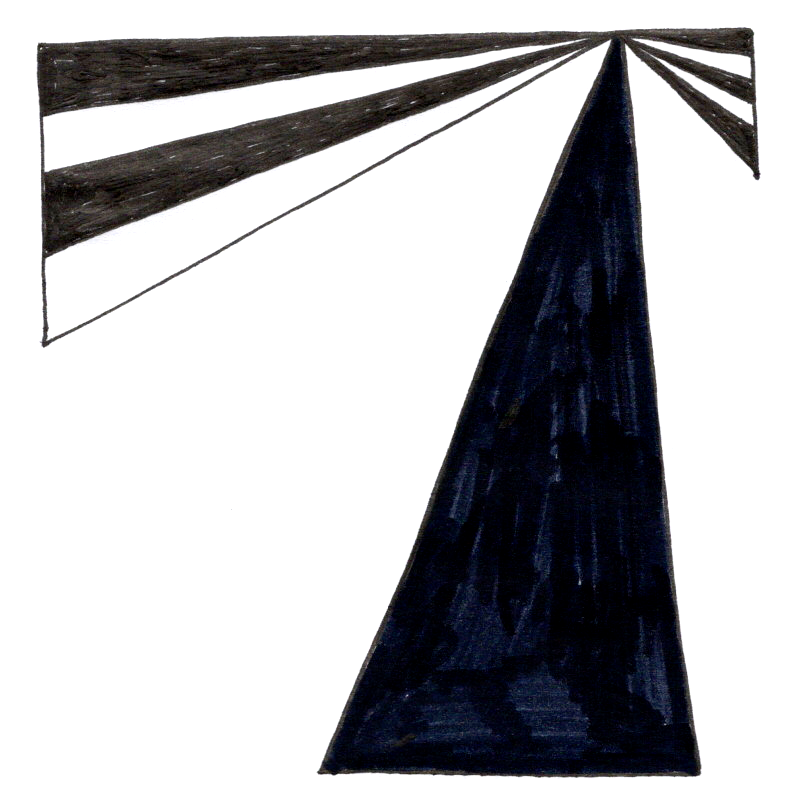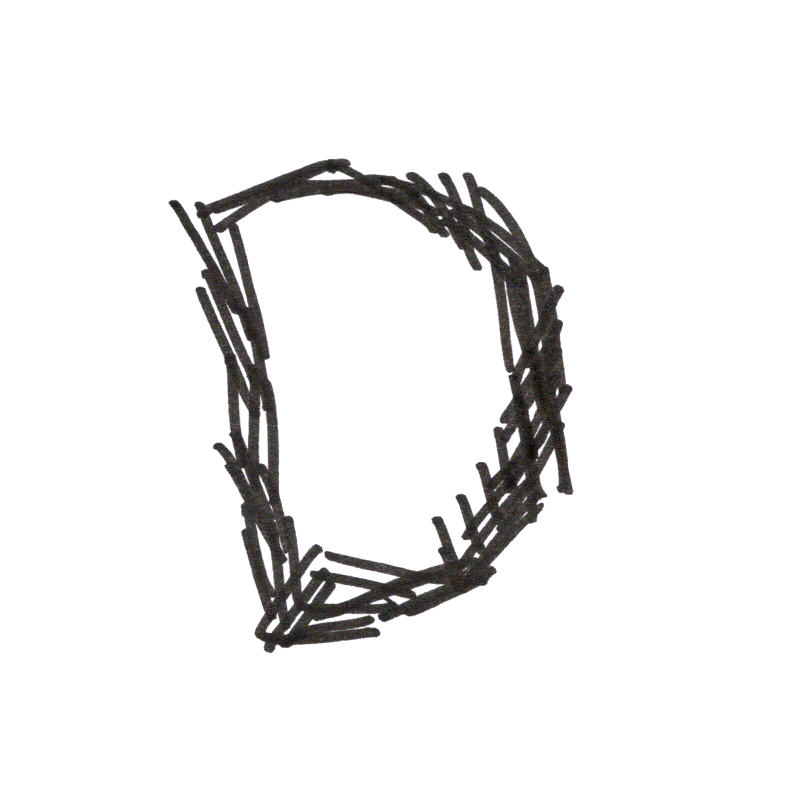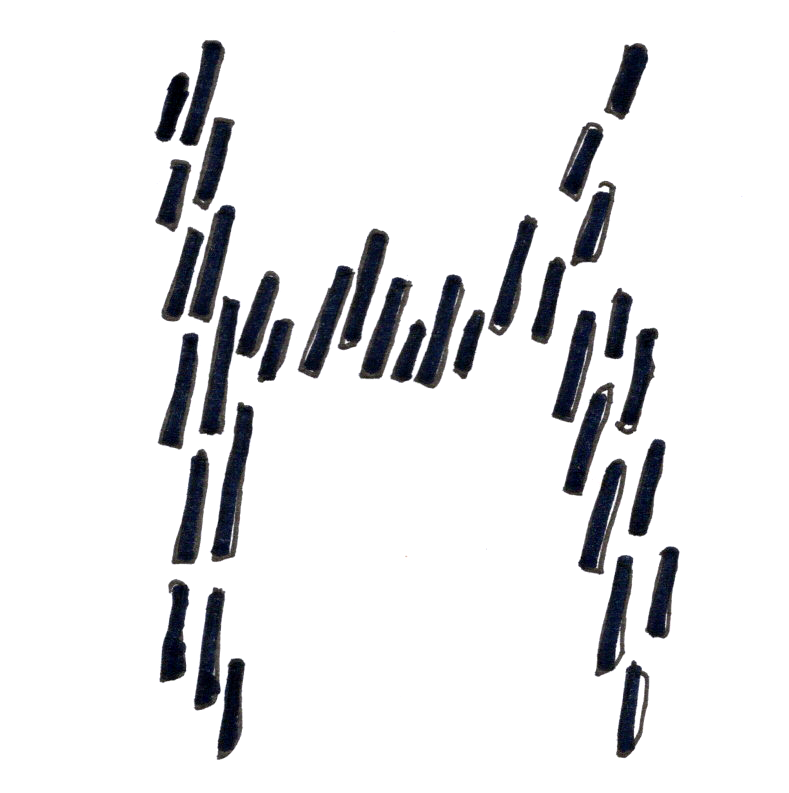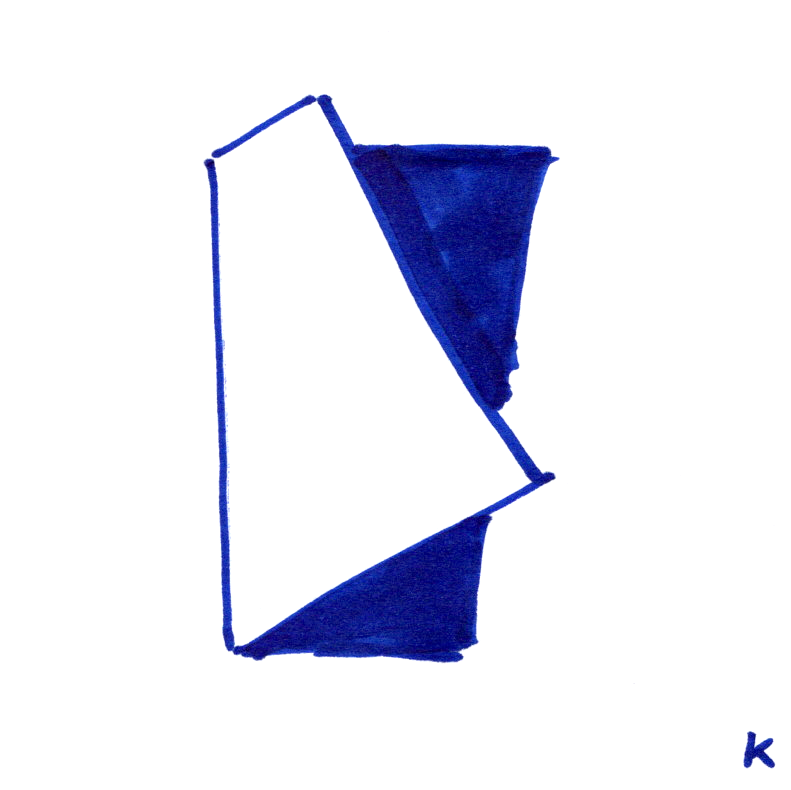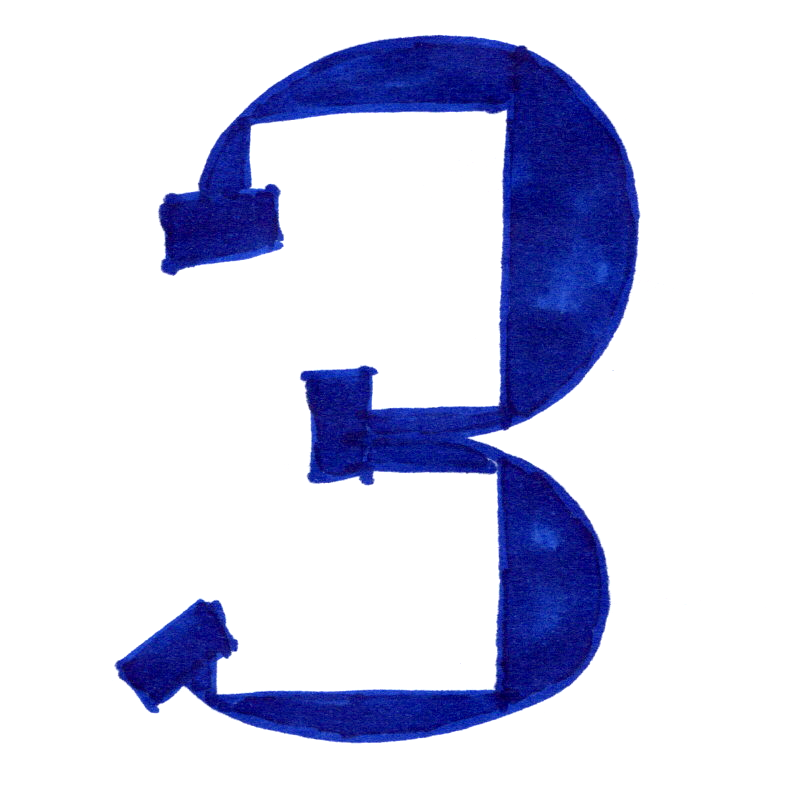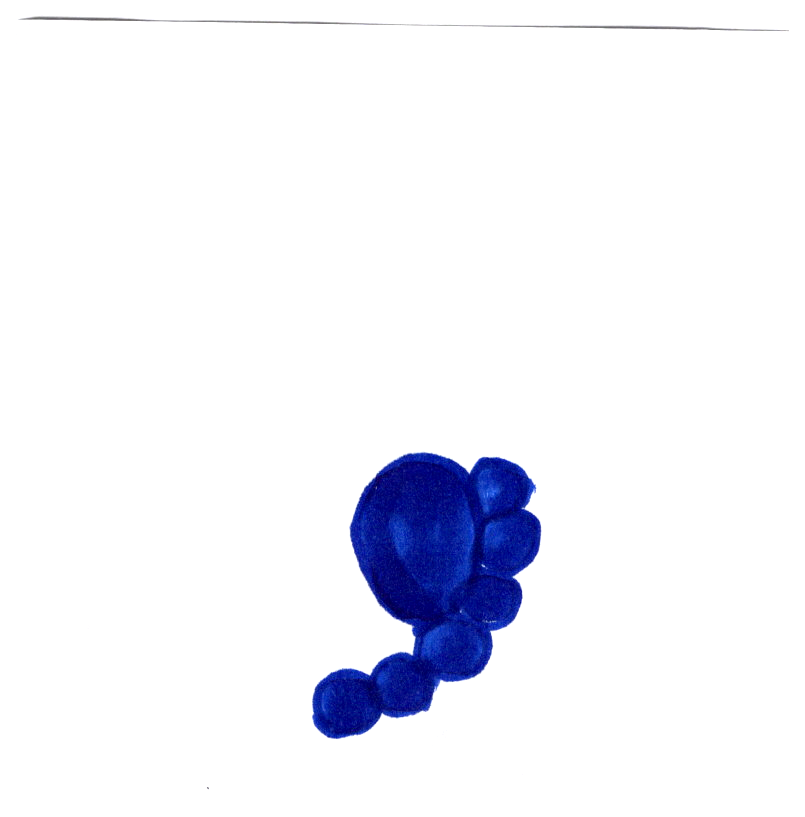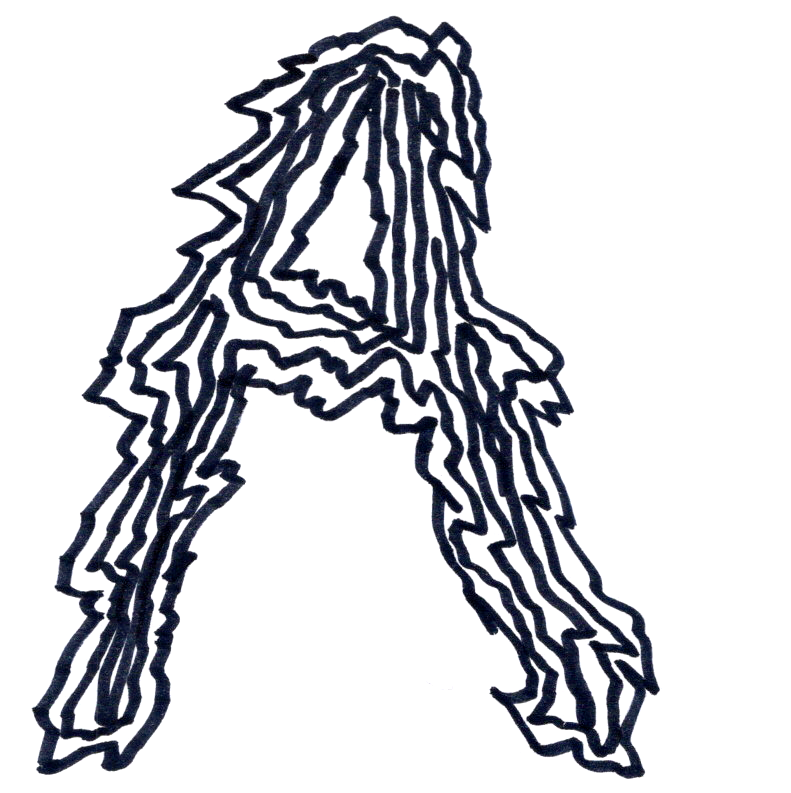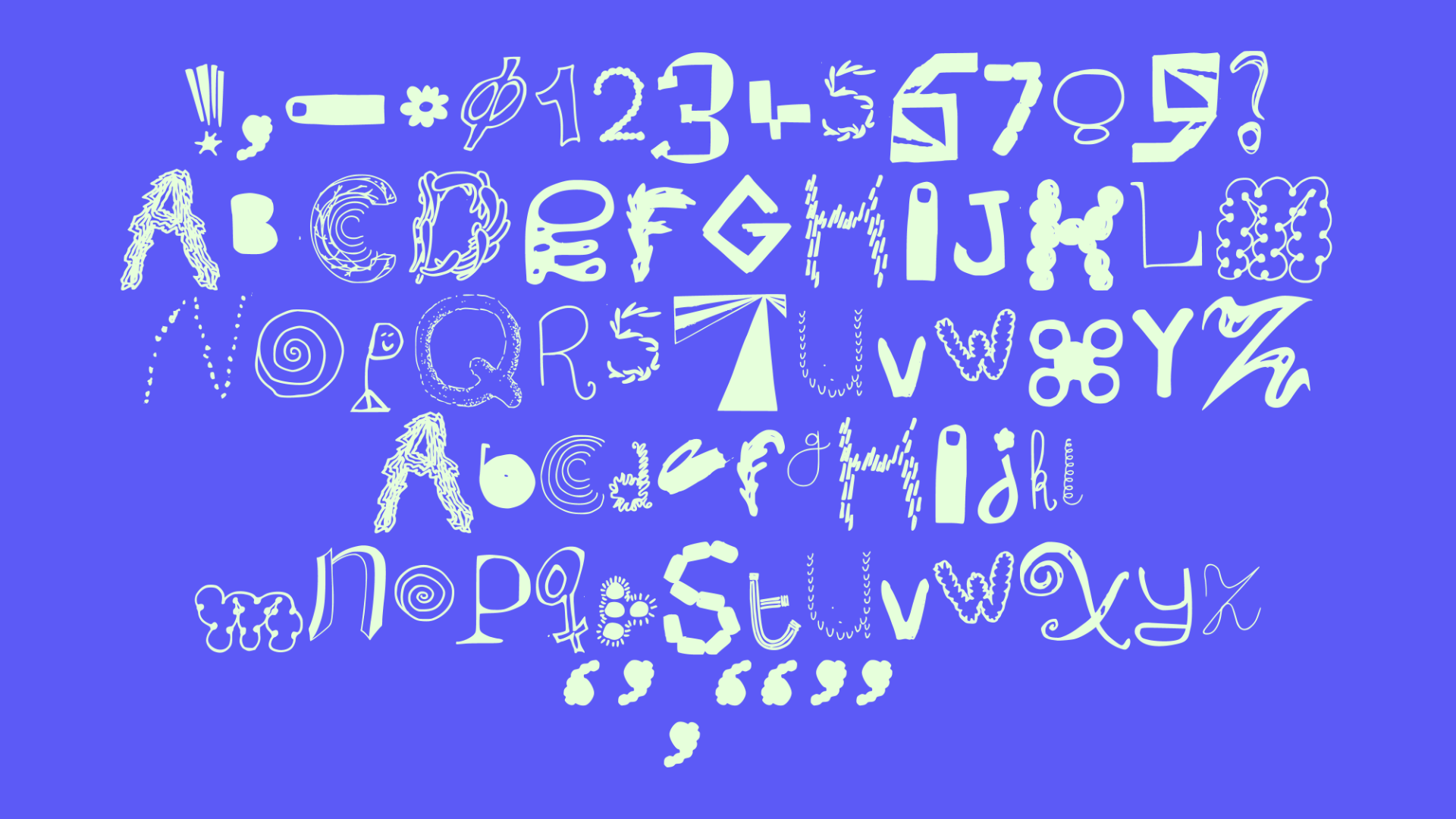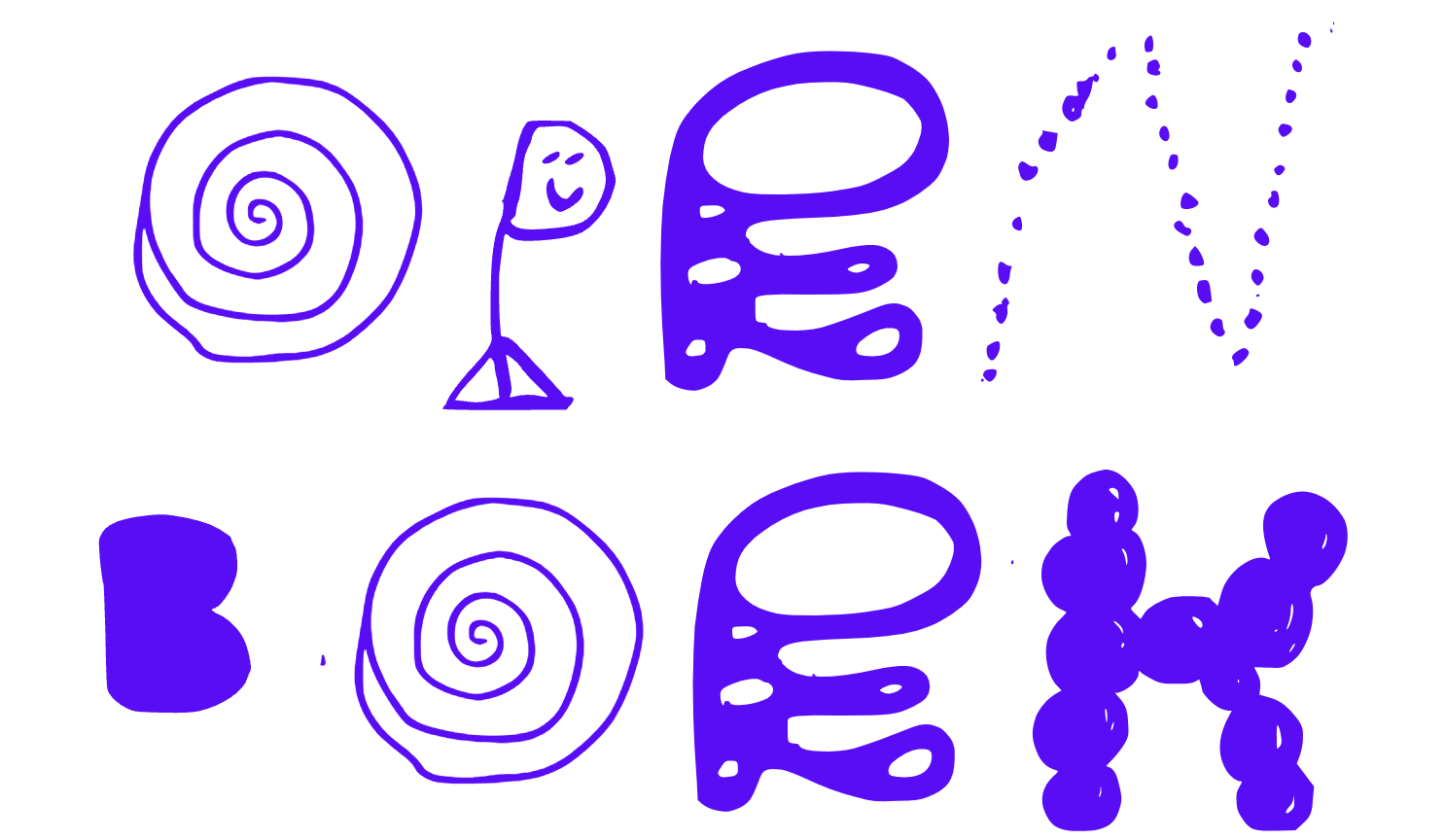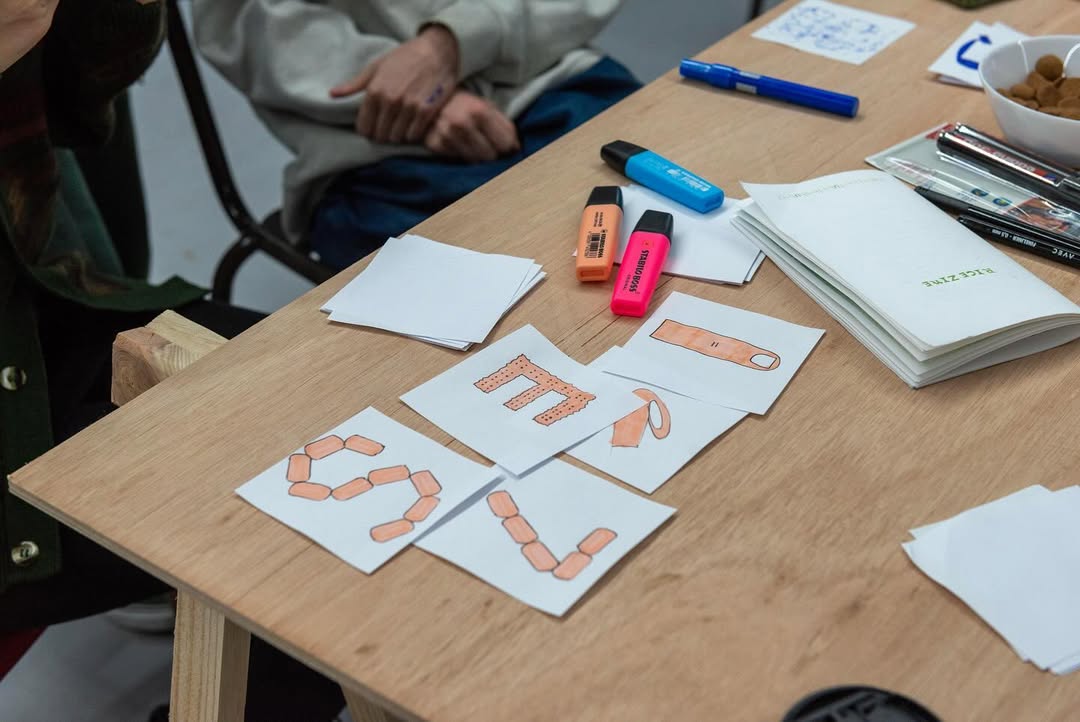
OpenBoek
By OpenBoek Type Drawing Workshop Participants
OpenBoek came from a workshop at ClubSolo where participants drew letters however they wanted - no rules, no technique instructions. Xiaoyuan vectorized the drawings into "OpenBoek-notRegular.otf".
@dreamingproblems, @zelootillustrations, simon, Iris van Velzen ... and people I don't know their names